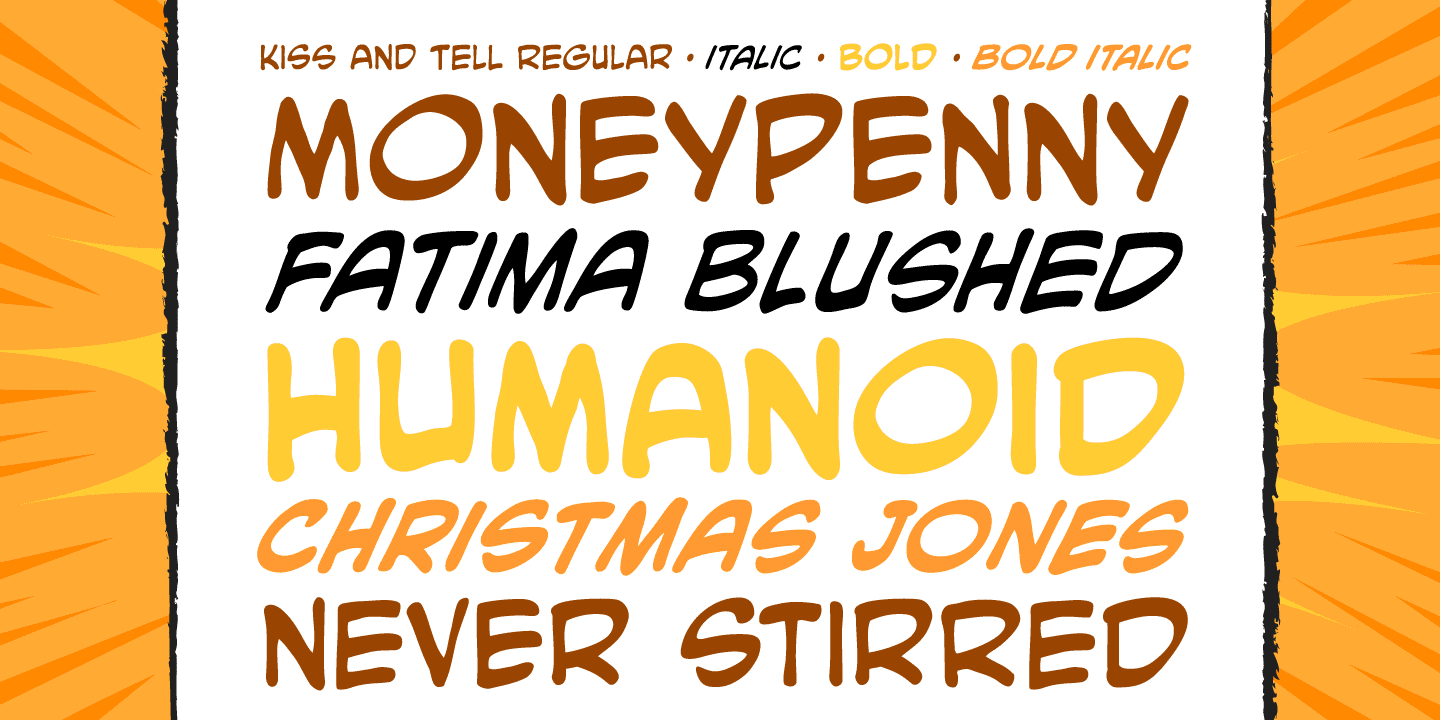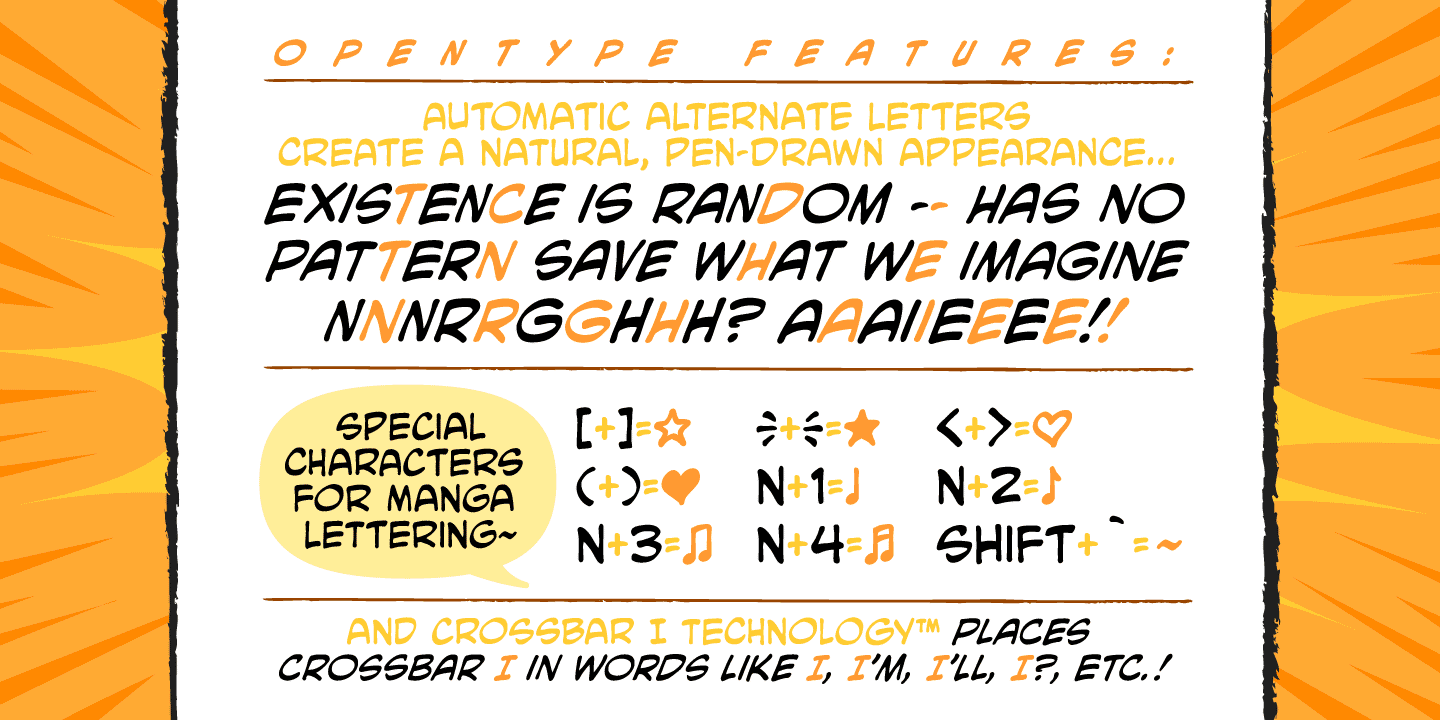
You wanted the best and you got the best! Originally created for the KISS: PSYCHO CIRCUS comic in the late '90s, this thick/thin font is one of our most versatile and popular offerings.